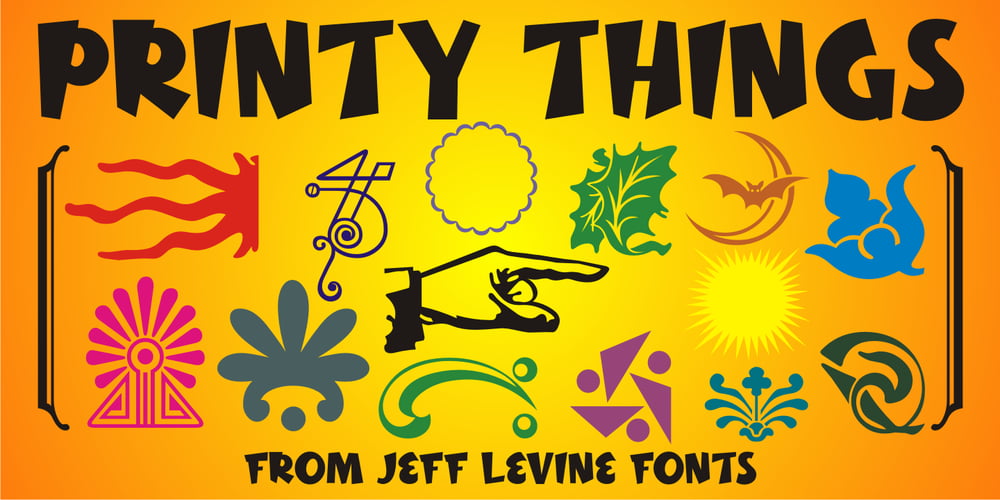
Printy Things JNL Font Family was designed by Jeff Levine and published by Jeff Levine. Printy Things JNL contains 1 styles and family package options. Printy Things JNL gathers together another collection of dingbats, border elements, embellishments and other images from vintage source material.